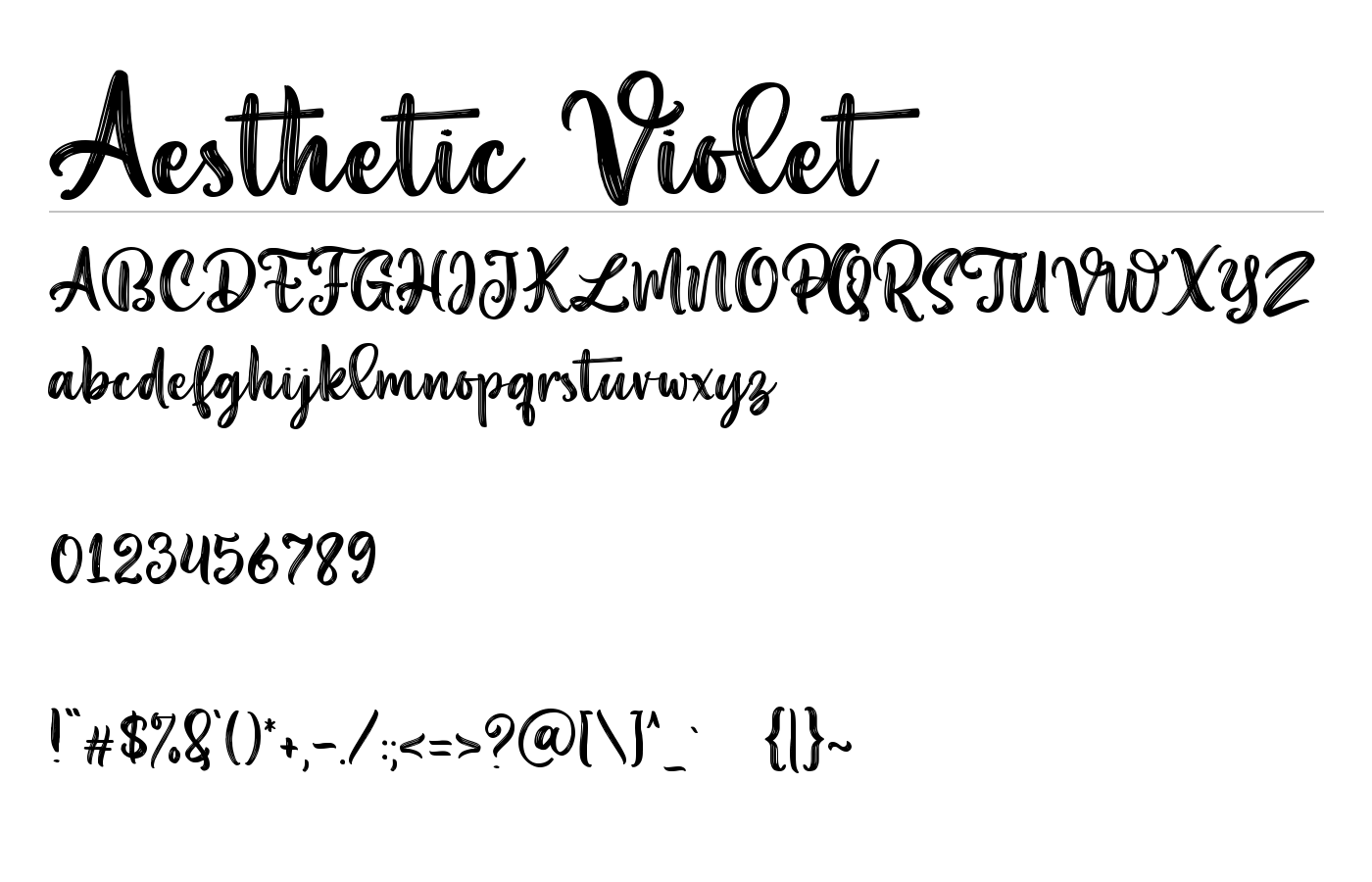
Aesthetic Violet is a playful and elegant script font with a lively, hand-drawn feel. Its smooth, brush-style strokes and moderately high contrast give it a charming and approachable personality, making it perfect for creative branding, invitations, and decorative headlines where a personal touch is desired. This font shines in designs seeking a blend of sophistication and whimsy, especially in fashion, beauty, and lifestyle contexts.
Aesthetic Violet Font
About Aesthetic Violet Font
| Font family | Aesthetic Violet Font |
| Designer | Abo Daniel 2020 |